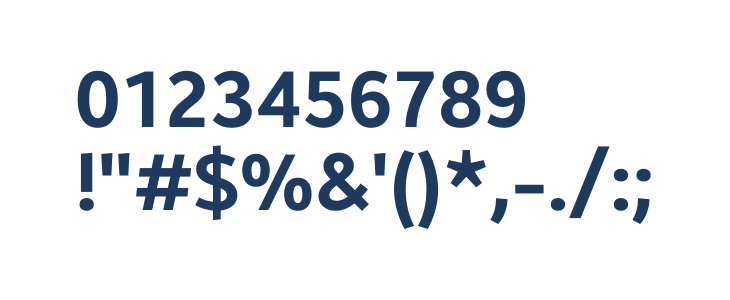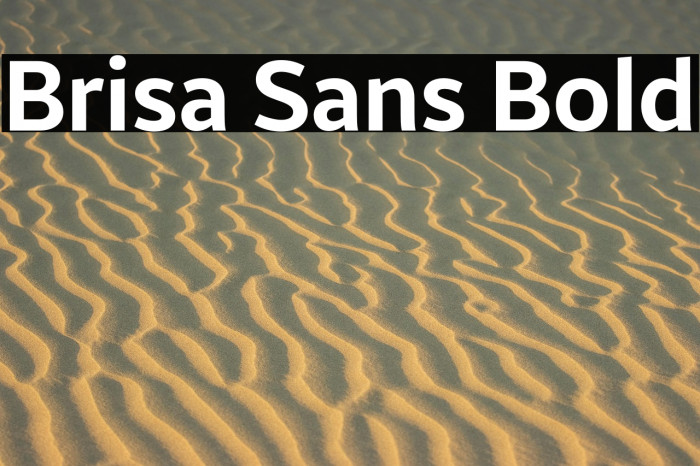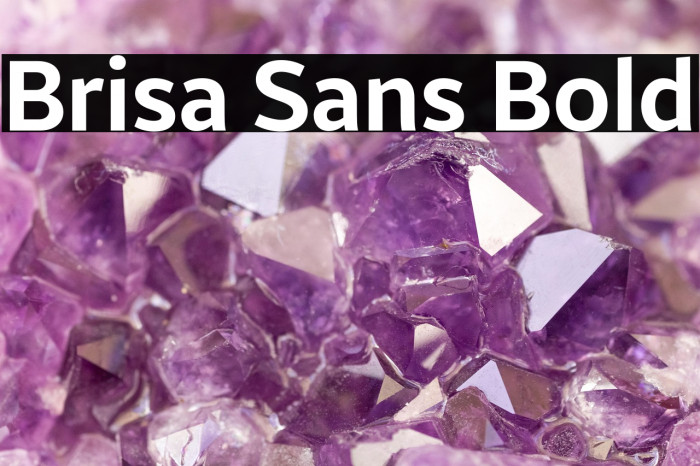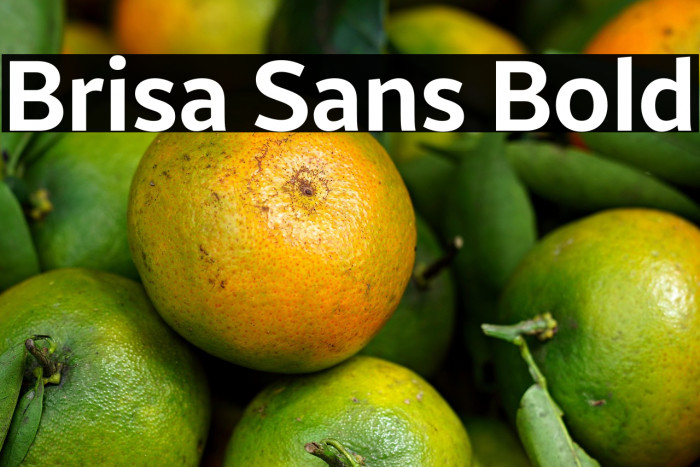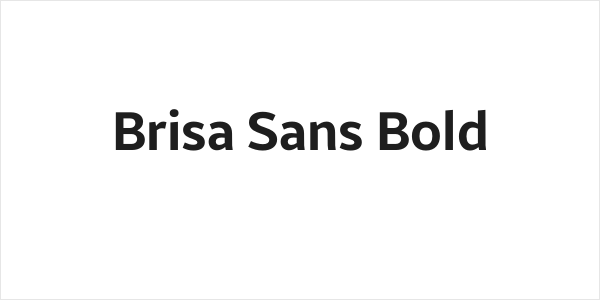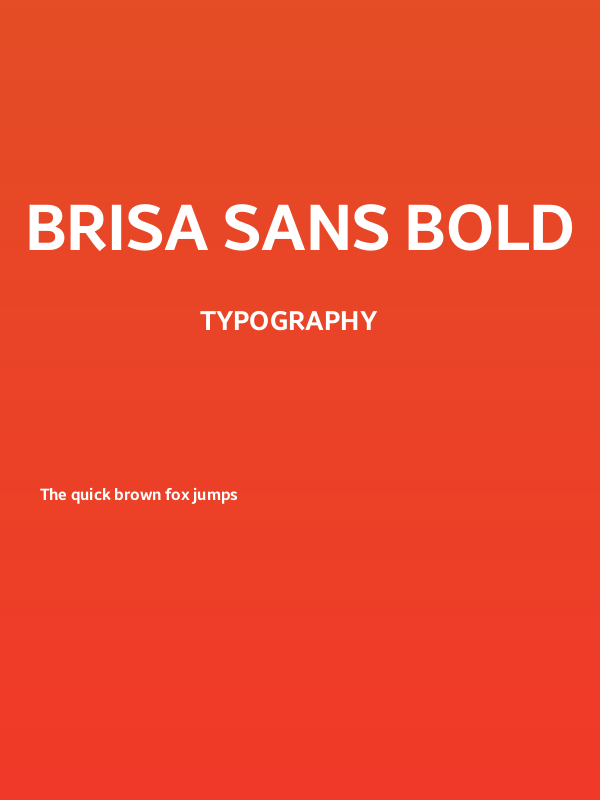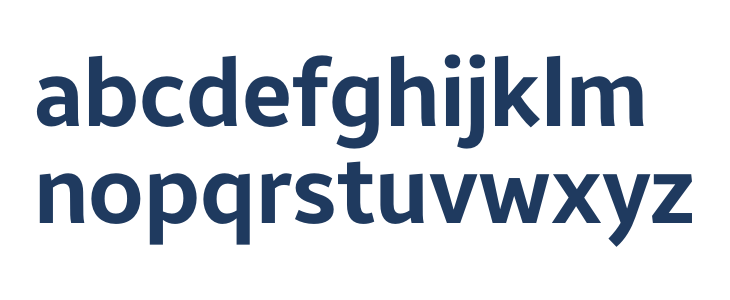
Brisa Sans Bold Font
Brisa Sans Bold Description
This typeface features a clean and modern design with a strong emphasis on clarity and readability. The characters are well-proportioned with a uniform stroke width, giving it a balanced and harmonious appearance. The uppercase letters are bold and commanding, while the lowercase letters maintain a friendly and approachable feel. The numerals are clear and distinct, ensuring easy legibility. The special characters are well-integrated, maintaining the overall aesthetic of the typeface. Its simplicity and versatility make it suitable for a wide range of applications.
| Proposed Projects | Ideal for branding, advertising, web design, and editorial projects where clarity and impact are essential. |